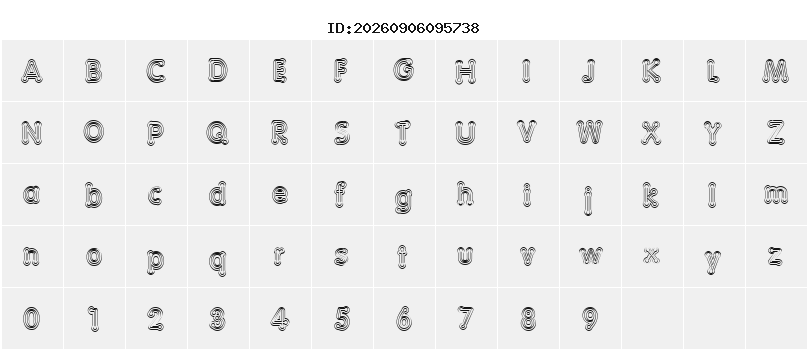
Teazer Preview
• Font Name: Teazer
• Font ID: Teazer Normal
• Full Font Name: Teazer Normal
• PostScript Name: Teazer-Normal
• Character Count: 196
About Teazer.ttf
Teazer.ttf is a modern, elegant sans-serif font designed for ultimate readability and visual harmony. Perfect for branding, headlines, web design, and print materials.